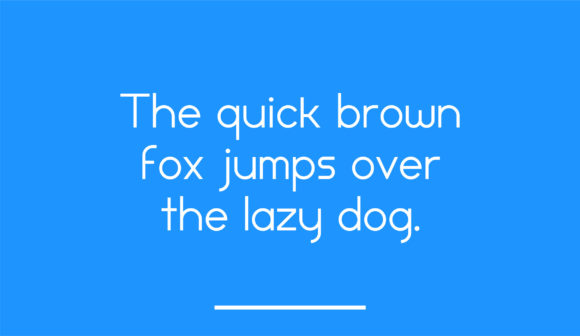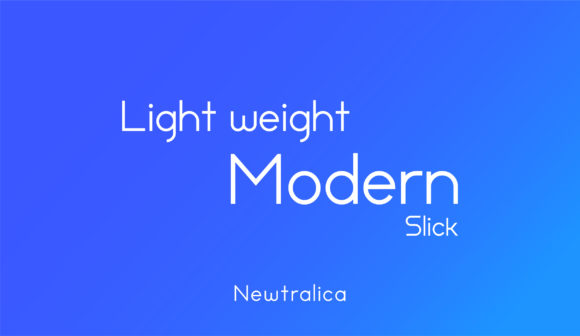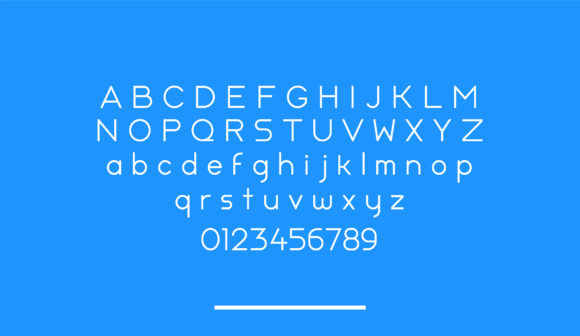
Introduction to Newtralica Font
As a designer, there’s nothing quite like the thrill of bringing a project to life. You’ve spent hours pouring over sketches, refining your idea, and finally, it’s time to bring it all together. But then, you hit a roadblock – the font. Will it be too bold, too dull, or just plain unremarkable? That’s where the Newtralica Font comes in – a sleek, modern sans serif font that’s perfect for elevating your creative project to the next level.
With its clean lines and transparent background, the Newtralica Font is the perfect design resource for any project. Whether you’re working on a high-quality brochure, a free download, or even a simple website, this font is sure to make your design stand out from the crowd. And the best part? It’s available for free download, making it an invaluable resource for designers of all levels.
Key Features of Newtralica Font
- High-quality, free font suitable for various design projects, including creative and professional uses.
- Features a transparent background, making it ideal for projects requiring a clean and minimalist aesthetic.
- Designed to be highly legible and versatile, suitable for use in various contexts, from body text to headings.
- Resolution-independent, ensuring crisp and clear display on high-resolution screens and devices.
Honest Review: Newtralica Font
I recently stumbled upon the Newtralica Font and I must say, it’s a great addition to any design resource. The font offers a high quality, clean design that’s perfect for creative projects. One of the standout features is its transparent background, which makes it easy to use in a variety of design applications.
- ✨ High quality design that’s perfect for creative projects
- ✨ Transparent background makes it easy to use in various design applications
However, there are a few limitations to consider. The font is not suitable for complex typography, and the character set is limited.
- ⚠️ Not suitable for complex typography
- ⚠️ Limited character set
Overall, I’m impressed with the Newtralica Font. It’s a great design resource for simple, clean typography. While it has its limitations, it’s a great option for designers looking for a high quality font.
Tips for Getting the Most Out of Newtralica Font
For the best results, use Newtralica Font in conjunction with a transparent background to create a sleek, modern design. Experiment with different font sizes and styles to add depth and visual interest to your project.
Newtralica Font is ideal for a wide range of creative projects, including business cards, brochures, and presentations. Its high-quality design and transparent background make it a valuable design resource for any professional or personal project.